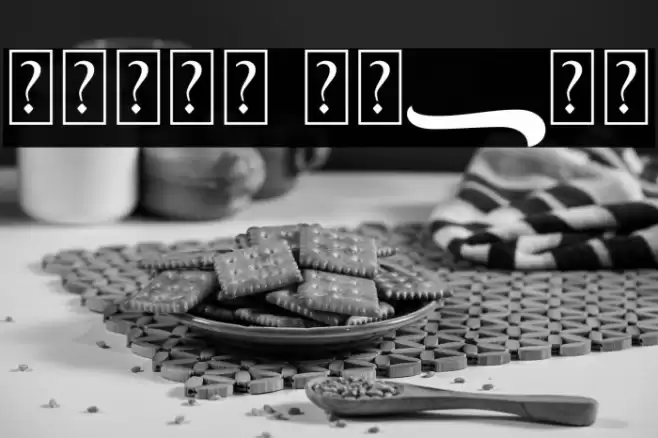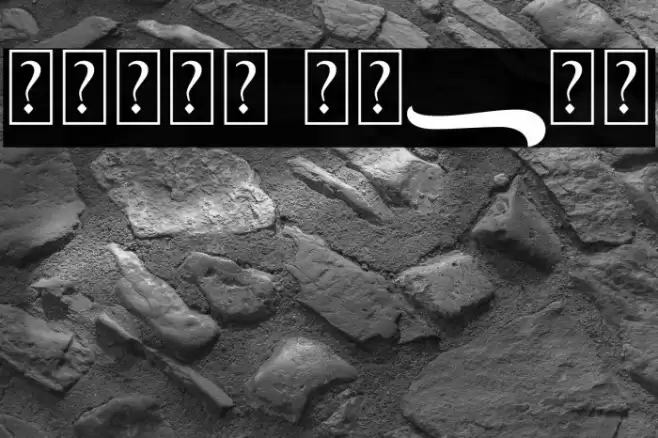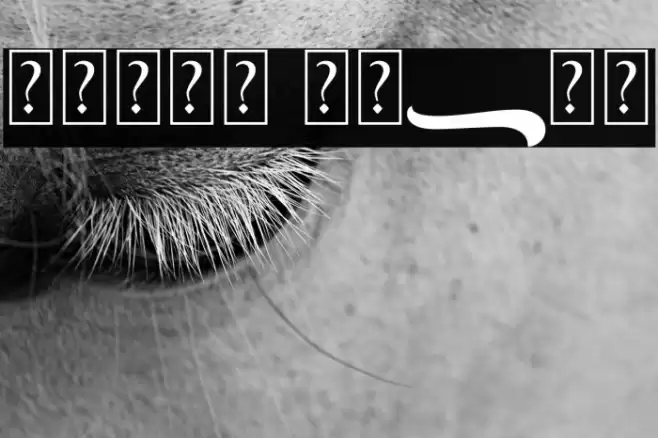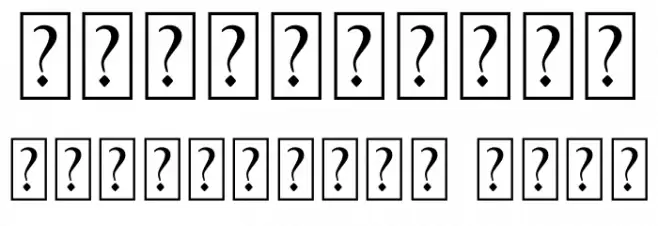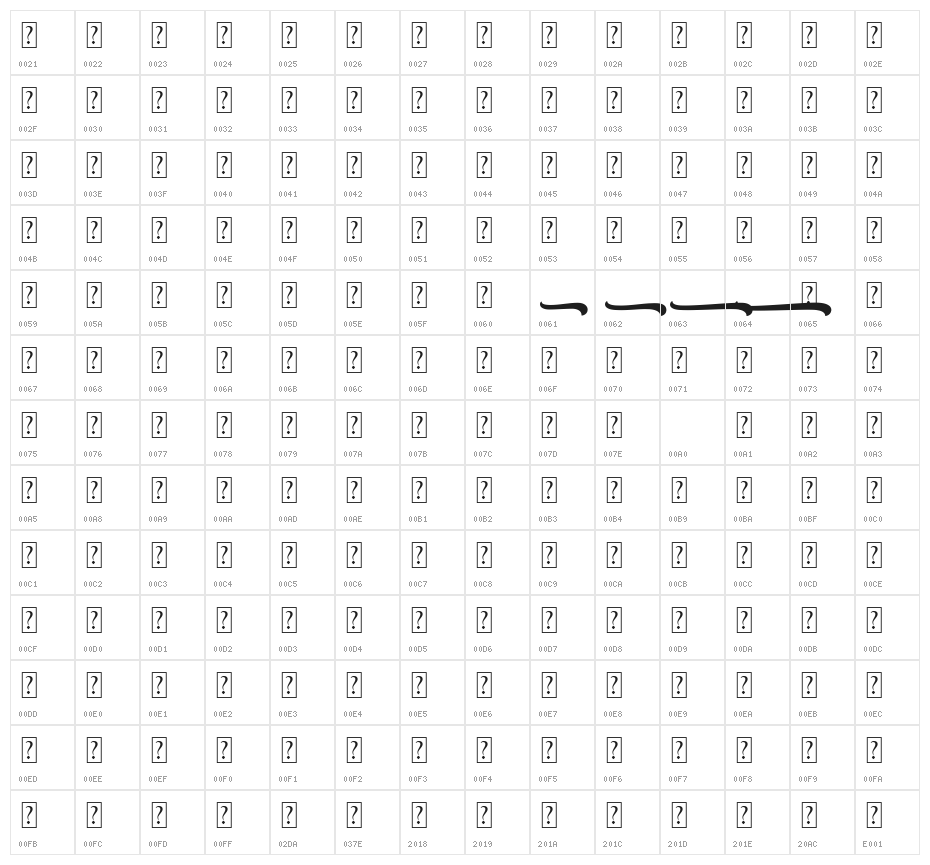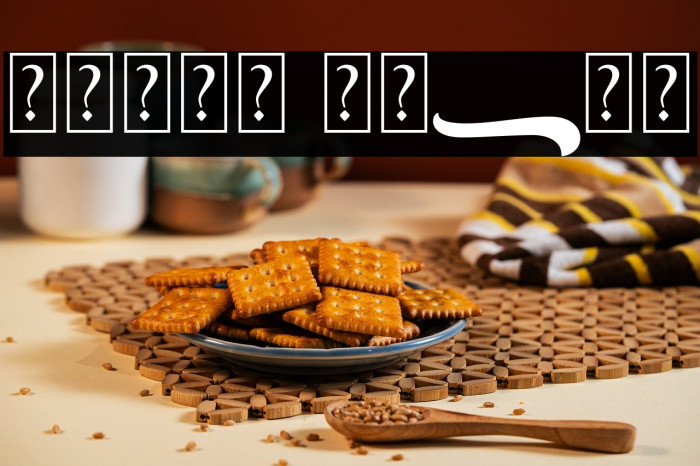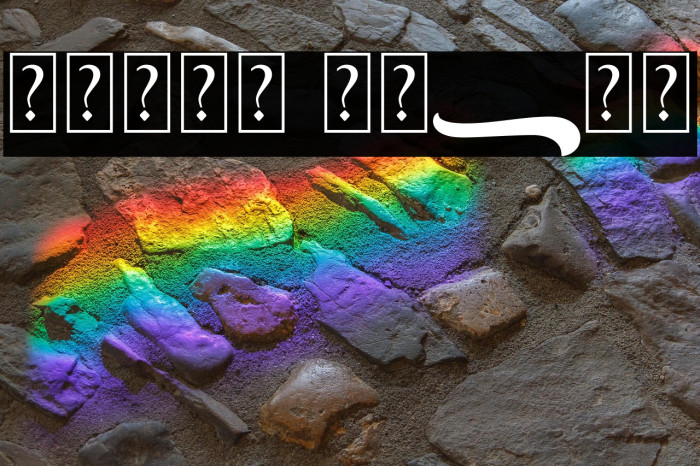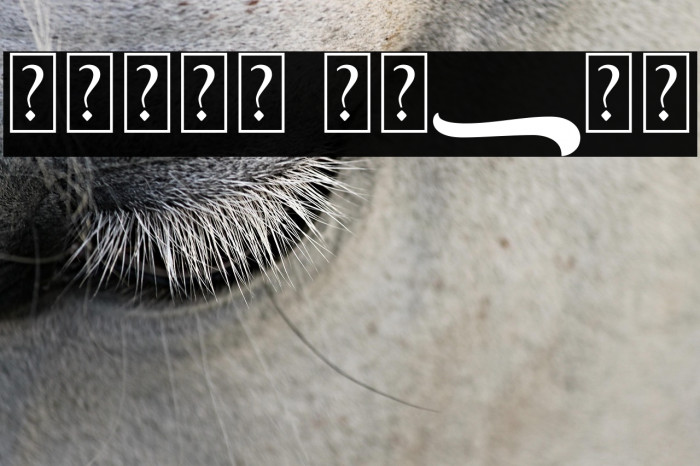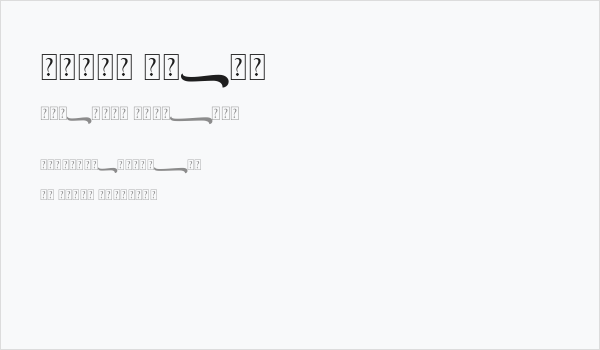
Gient Swash Font
Gient Swash Description
A decorative font with exaggerated swashes and flourishes, featuring high contrast between thick and thin strokes.
Decorative font with exaggerated swashes from Regular fonts.
- Proposed Projects: Logos, headlines, invitations.
- Width: Expanded